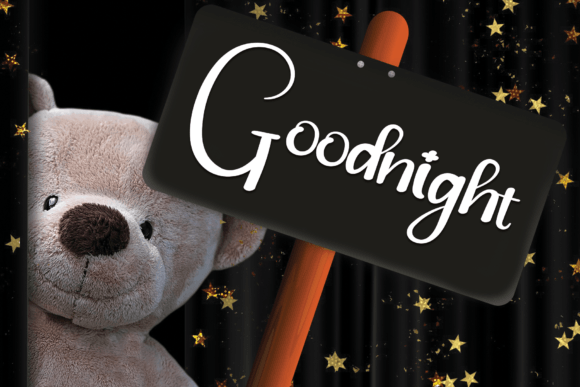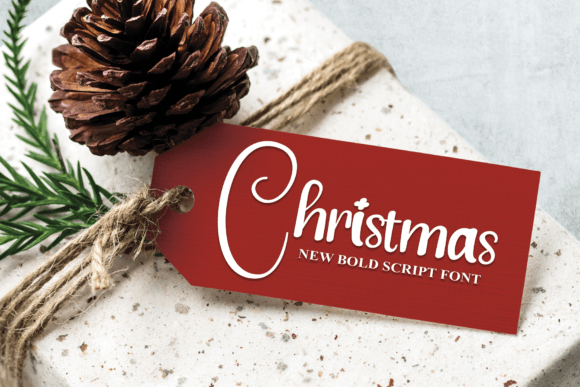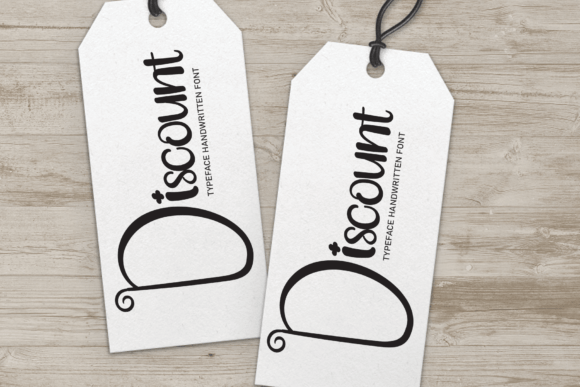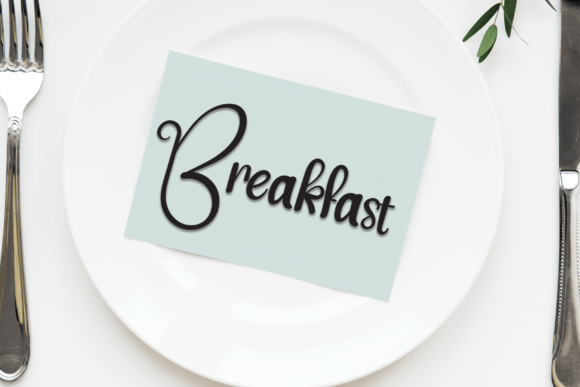
Introducing Beef Steak Font: The Perfect Choice for Romantic Designs
Are you looking for a font that exudes love, care, and a personal touch? Look no further than the Beef Steak font, a sweet and smooth handwritten font that’s perfect for creating romantic designs. In this article, we’ll dive into the world of Beef Steak font, exploring its features, uses, and benefits for designers and crafters.
What is Beef Steak Font?
Beef Steak is a beautiful, handwritten font that’s characterized by its smooth and flowing lines. This font is designed to add a touch of warmth and personality to any design, making it ideal for projects that require a romantic and whimsical feel. Whether you’re creating wedding invitations, greeting cards, or social media graphics, Beef Steak font is sure to make your designs stand out.
Key Features of Beef Steak Font
- Cute and Playful: Beef Steak font has a playful and charming vibe that’s perfect for creating designs that are fun and lighthearted.
- Sweet and Smooth: The font’s smooth lines and curves give it a sweet and elegant feel that’s ideal for romantic designs.
- Handwritten: Beef Steak font has a beautiful, handwritten quality that adds a personal touch to any design.
- Versatile: This font is suitable for a wide range of design projects, from wedding invitations to social media graphics.
Uses for Beef Steak Font
Beef Steak font is a versatile font that can be used for a variety of design projects. Here are some ideas to get you started:
- Wedding Invitations: Add a touch of romance and elegance to your wedding invitations with Beef Steak font.
- Greeting Cards: Create beautiful and heartfelt greeting cards for special occasions like birthdays, anniversaries, and Valentine’s Day.
- Social Media Graphics: Use Beef Steak font to create eye-catching social media graphics that are sure to grab attention.
- Logos and Branding: This font can also be used to create beautiful logos and branding materials for businesses that want to convey a sense of warmth and personality.
Beef Steak font offers a range of benefits for designers and crafters, including:
- High-Quality Design: Beef Steak font is designed to high standards, ensuring that your designs look professional and polished.
- Time-Saving: With Beef Steak font, you can create beautiful designs in no time, saving you time and effort.
- Unique and Creative: This font allows you to add a unique and creative touch to your designs, setting them apart from the competition.
Tips for Using Beef Steak Font
Here are some tips for getting the most out of Beef Steak font:
- Pair with Other Fonts: Experiment with pairing Beef Steak font with other fonts to create interesting and unique combinations.
- Use for Headings and Titles: This font is perfect for headings and titles, adding a touch of elegance and sophistication to your designs.
- Experiment with Colors: Try out different colors and color combinations to add depth and interest to your designs.
In conclusion, Beef Steak font is a beautiful and versatile font that’s perfect for designers and crafters who want to add a touch of romance and personality to their designs. With its smooth lines, playful vibe, and ease of use, this font is sure to become a favorite in your design toolkit. So why wait? Download Beef Steak font today and start creating stunning designs that capture the heart!